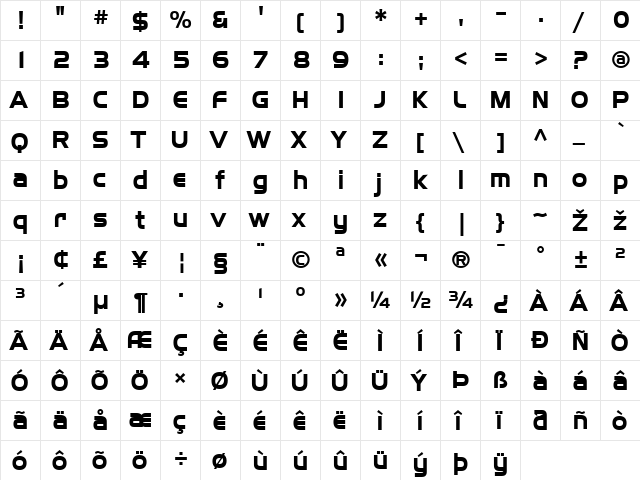
SF Fourche Bold
| Foundry | ShyFoundry |
| Designer | Derek Vogelpohl |
Design Context for SF Fourche Typeface
SF Fourche is a composed and adaptable typeface that performs quietly and consistently across a wide range of design contexts. The heavy weight commands attention and anchors typographic hierarchies.